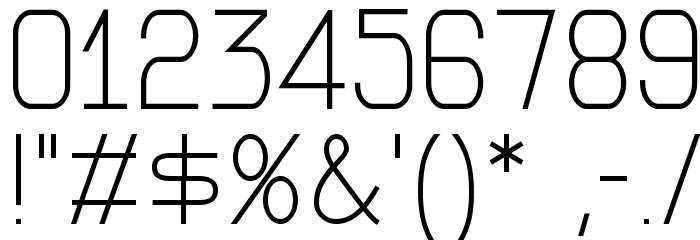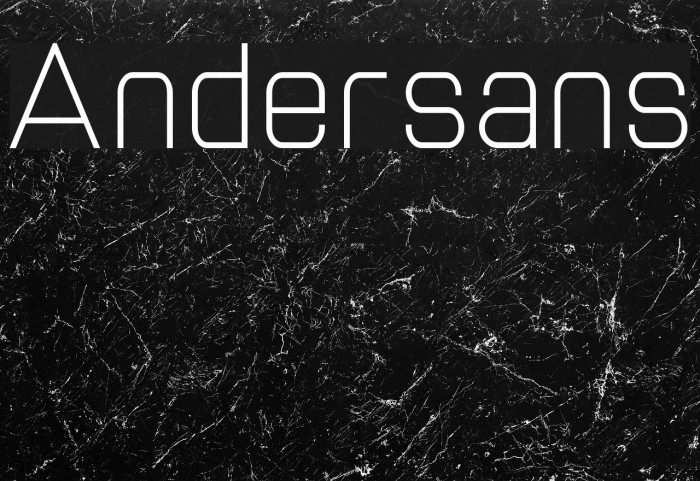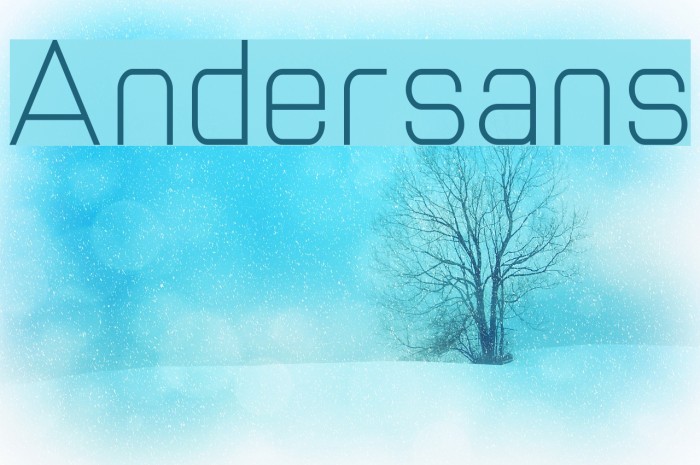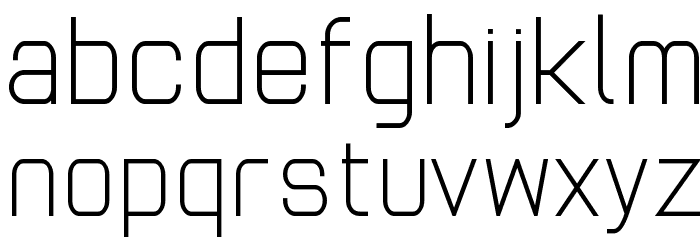
Andersans Font
This font exhibits a clean and modern sans-serif style with a geometric structure. The characters are uniform in width, providing a balanced and harmonious appearance. The uppercase letters are tall and slightly condensed, while the lowercase letters maintain a consistent height, enhancing readability. The numerals are clear and distinct, matching the overall geometric aesthetic. Special characters are designed with simplicity, ensuring they blend seamlessly with the alphanumeric characters. The font's minimalistic design makes it versatile for various applications, offering a contemporary and professional look.
A modern, geometric sans-serif font with a clean and balanced appearance.